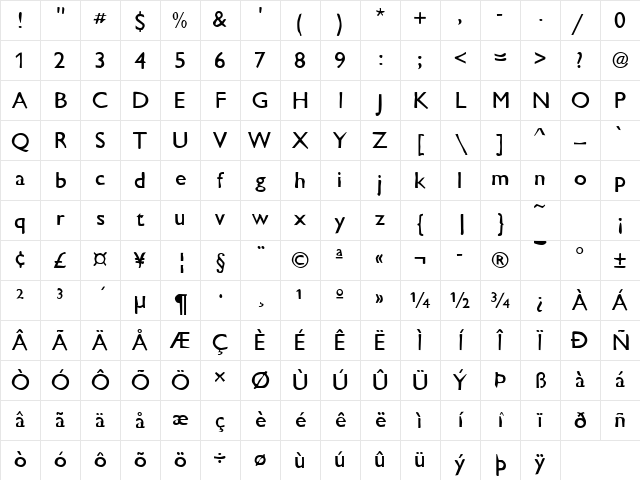
Complete Dirty24 Becker Regular glyph index. Displaying only characters natively supported by Dirty24 Becker Regular font.
Dirty24 Becker is a composed and adaptable typeface that performs quietly and consistently across a wide range of design contexts.